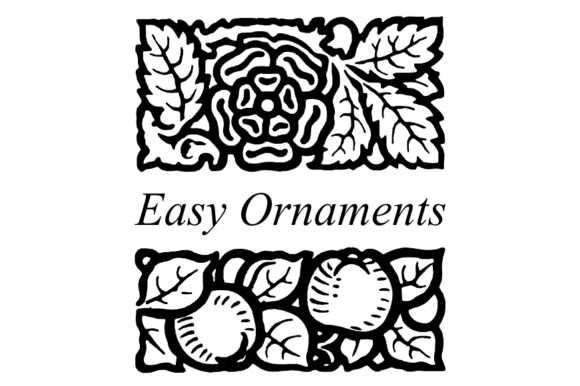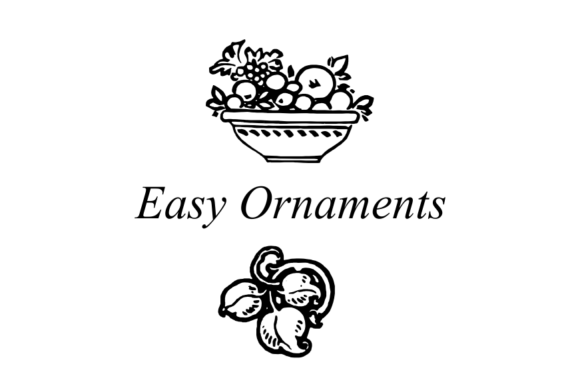
Introduction to Easy Ornaments Font
Easy Ornaments contains classical typographic ornaments with Victorian, art-deco and art nouveau styles.
| 📌 Product Name | Easy Ornaments Font |
| 👤 Author | Intellecta Design |
Easy Ornaments contains classical typographic ornaments with Victorian, art-deco and art nouveau styles
Key Features of Easy Ornaments Font